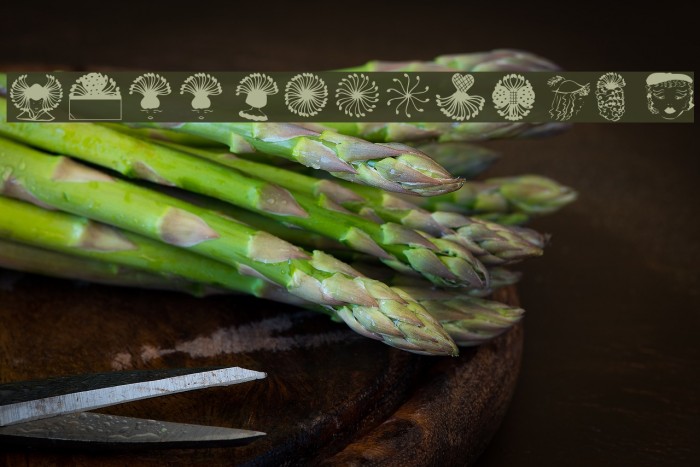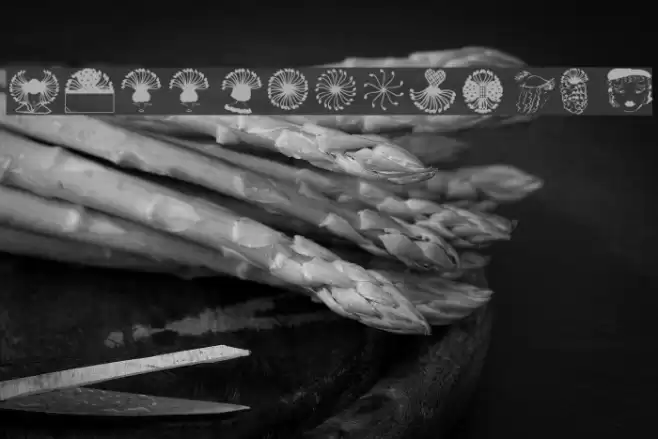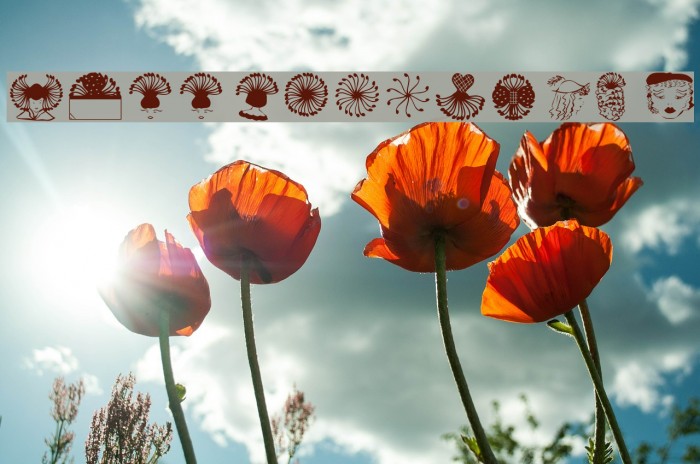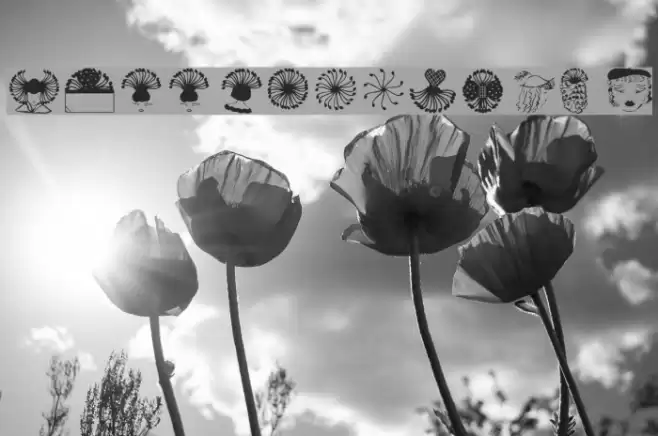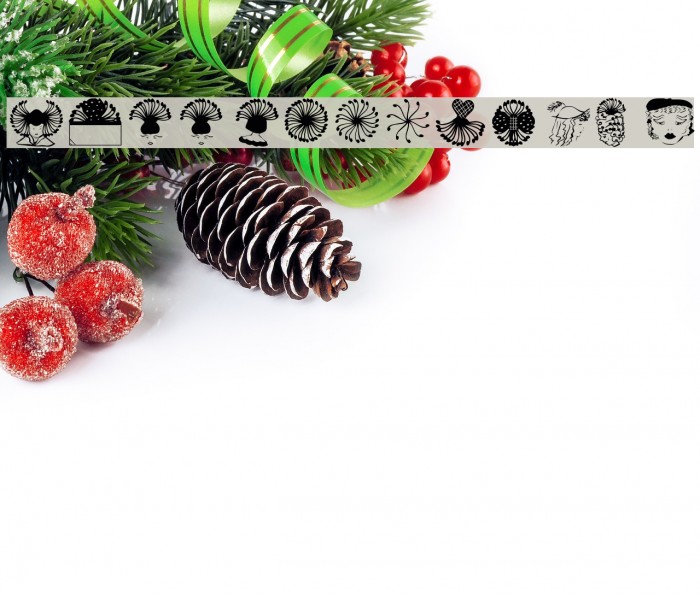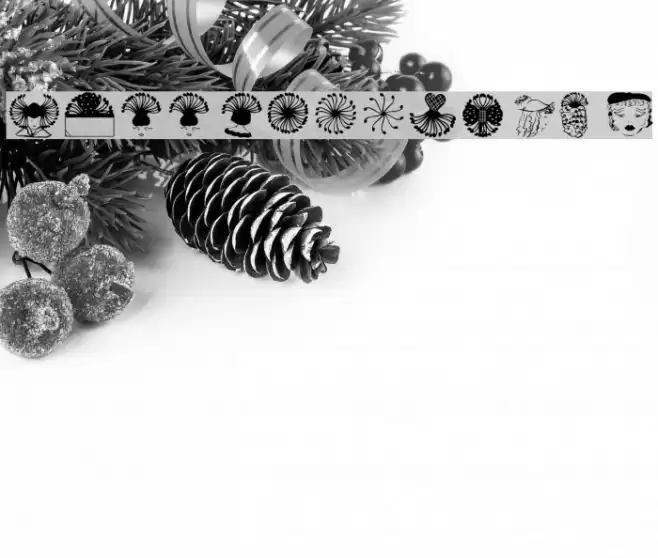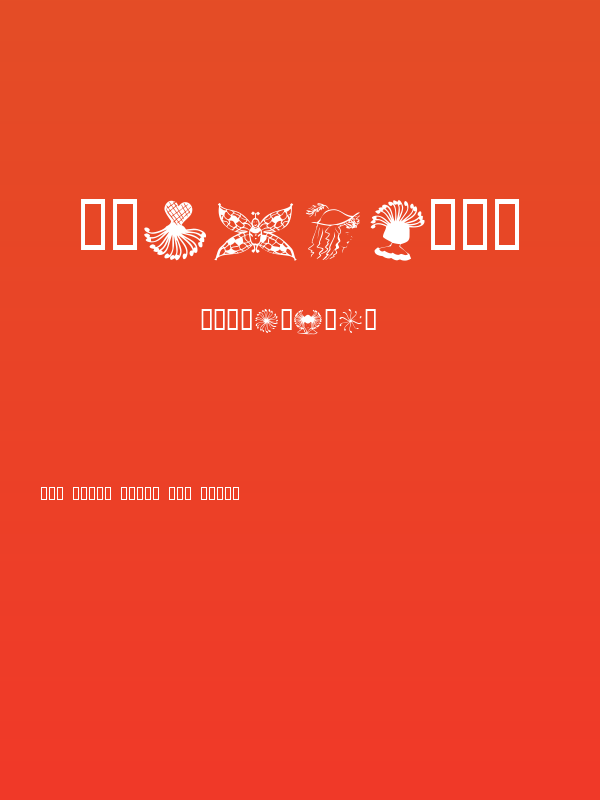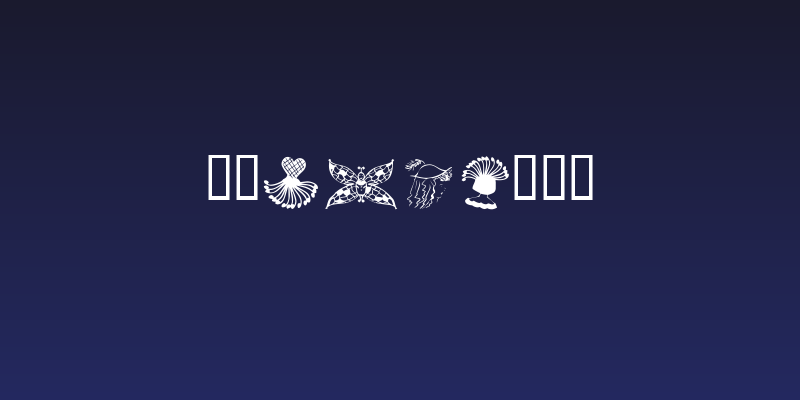
Trinkets3 Font
Trinkets3 Description
A decorative dingbat font featuring a collection of intricate, whimsical illustrations such as animals, faces, and abstract shapes, each rendered in a detailed black-and-white style.
| Overall Style | Decorative, Whimsical, Artistic |
| Use Case | Decorative elements, embellishments, icons |
| Proposed Projects | Scrapbooking, invitations, decorative borders, greeting cards, craft projects. |